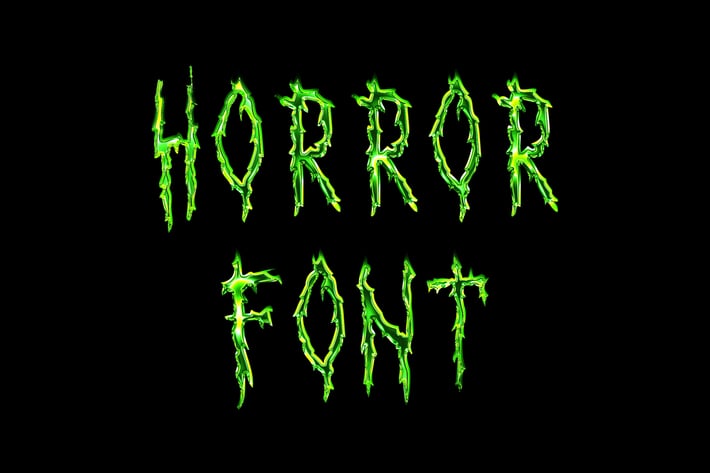
Horror Script Brush font
Horror is a handwritten font. Inspired by the current situation in the world. Horror will be a great asset for making your next design projects. It features 67 characters and has only all caps. The basic letters are included.